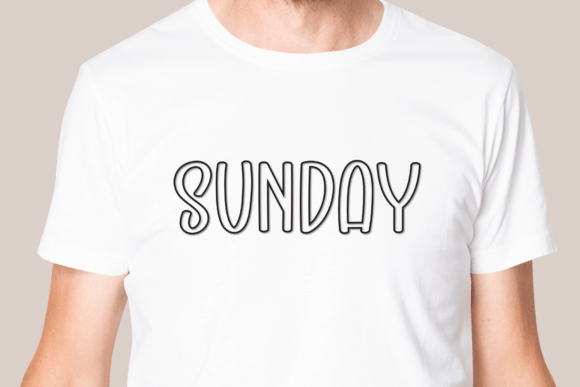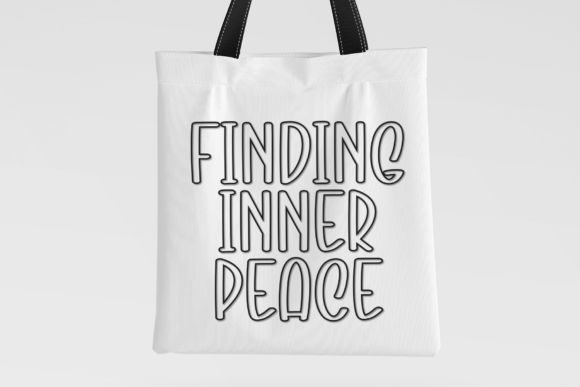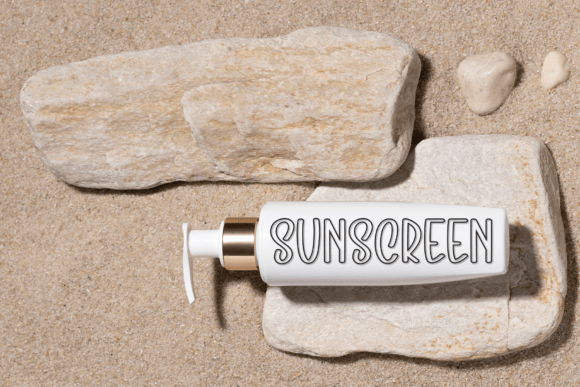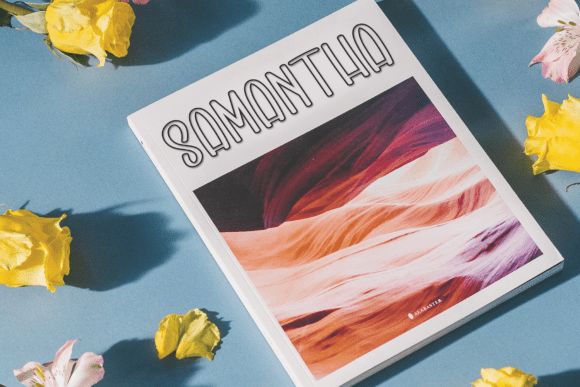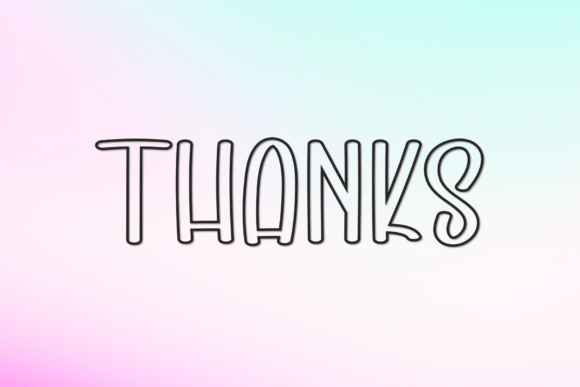
Introduction to Light Color Font Font
Fonts play a crucial role in design, and the Light Color Font font is a typeface that brings both character and versatility to any project. Whether you’re working on a branding project, a website, or a print design, the Light Color Font font offers a unique style that can elevate your work.
Light Color font stands out with its tall, narrow letterforms and rounded terminals, giving it a casual yet structured charm.
The outline-only style adds a playful, modern twist, making it ideal for layered designs, coloring applications, or pastel backdrops Despite its minimalism, it maintains a friendly tone through its soft curves, consistent line weight, and slightly quirky geometry, especially visible in the āGā and āR.
Key Features of Light Color Font Font
- ā Ideal for logos, branding, websites, and print
Why Choose Light Color Font Font?
The Light Color Font font is more than just a typeface ā it’s a design tool that helps you communicate your message with style and clarity. Its unique character set and versatile design make it suitable for a wide range of applications, from elegant invitations to bold headlines.
With its carefully crafted letterforms and balanced proportions, the Light Color Font font ensures readability and visual appeal across all mediums.
What makes Light Color Font font special?
The Light Color Font font stands out with its unique design, exceptional readability, and versatility across various design applications.